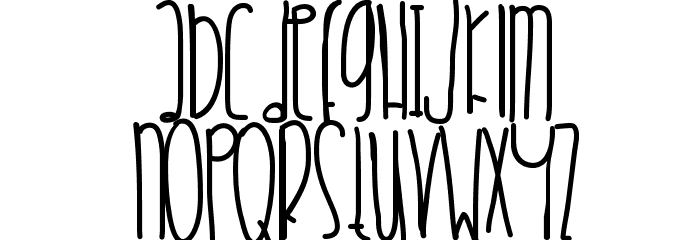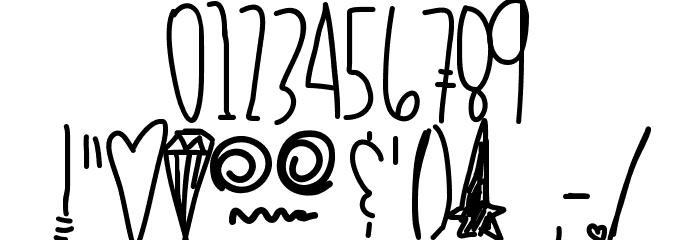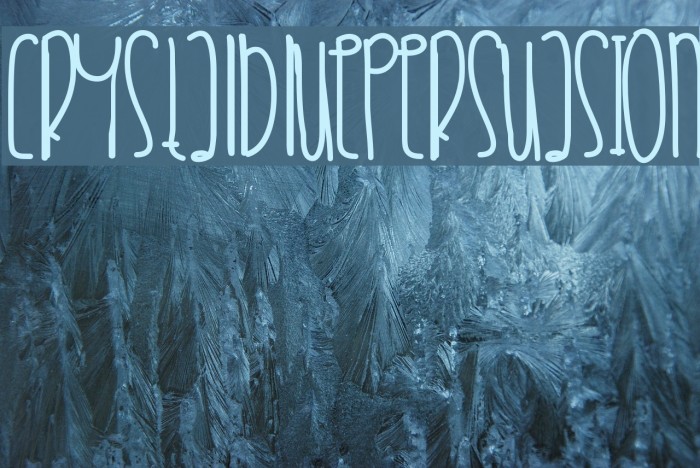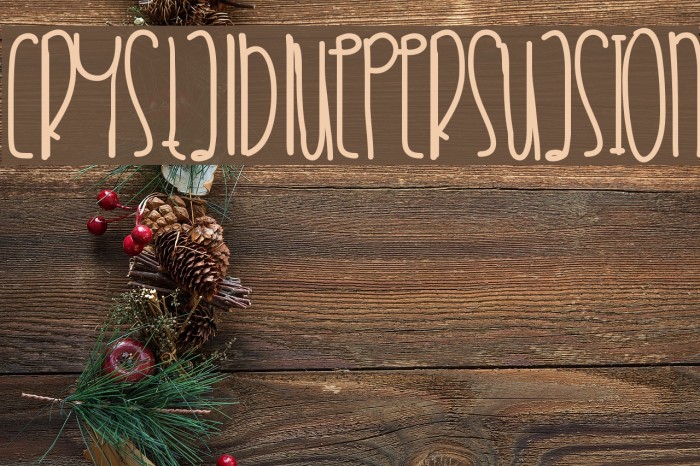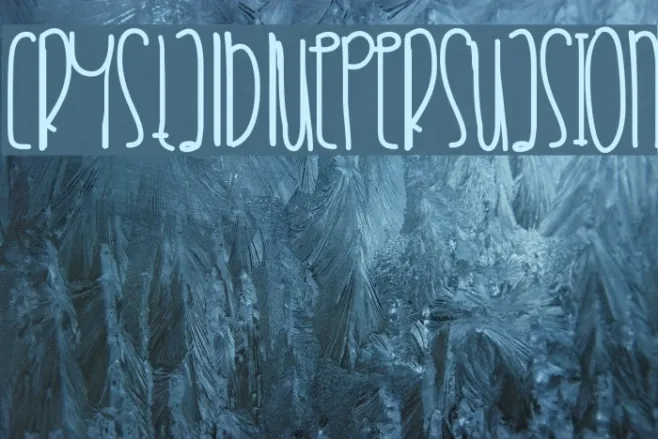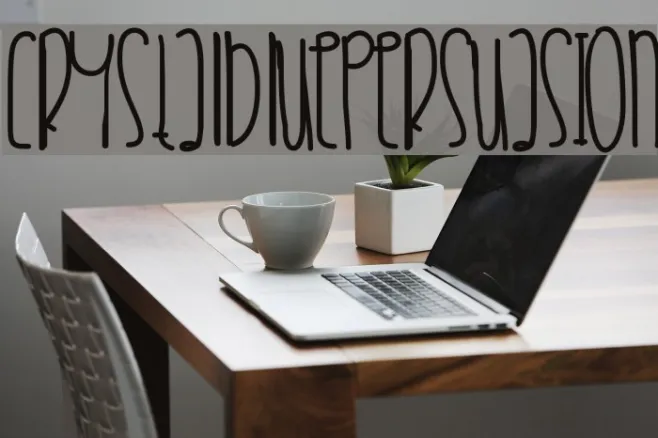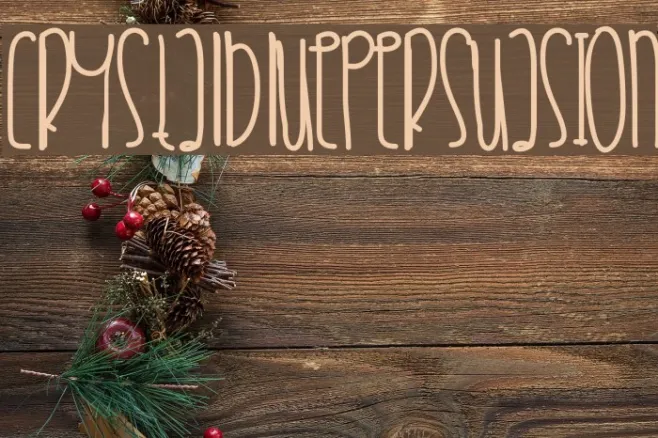
CrystalBluePersuasion Font
This font features a unique, elongated design with a playful and artistic flair. The characters are tall and narrow, giving them a distinctive appearance that stands out. The strokes are consistent in width, contributing to a clean and modern look. The font includes a full set of uppercase and lowercase letters, numbers, and a variety of special characters, each maintaining the same whimsical style. The overall aesthetic is both contemporary and artistic, making it suitable for creative projects that require a touch of individuality.
A tall, narrow font with a playful, artistic style.
- Proposed Projects: Ideal for creative projects such as posters, album covers, and unique branding materials.
- Overall Style: Modern, Artistic
- Use Case: Logos, Posters, Creative Branding